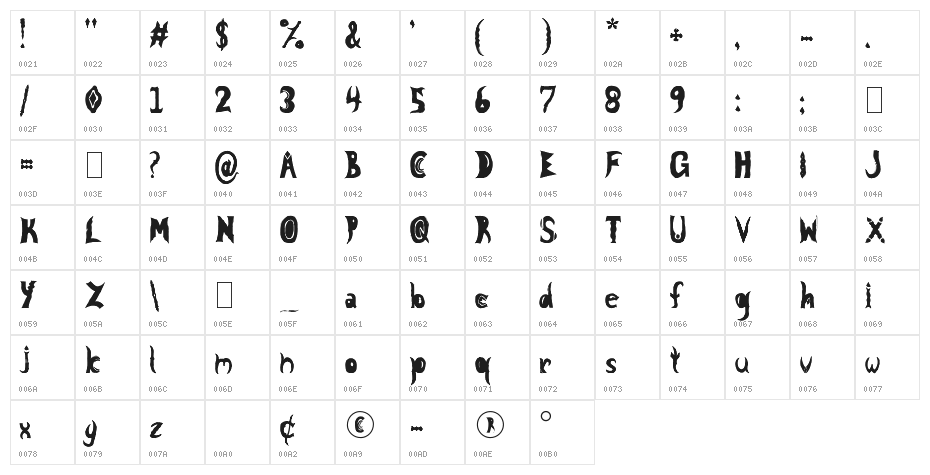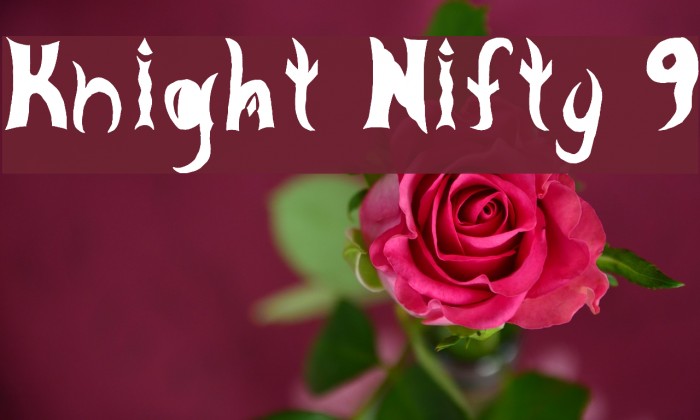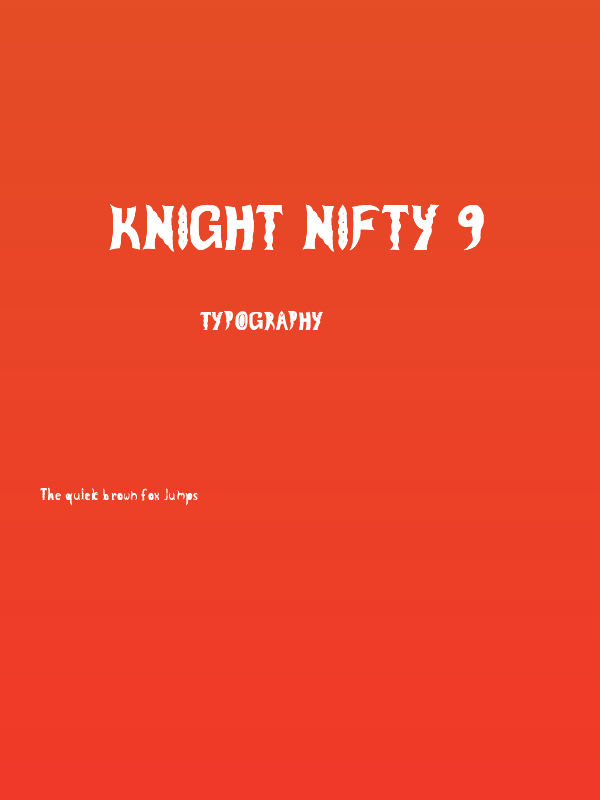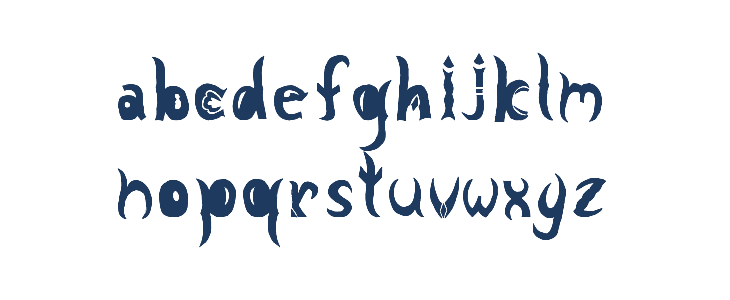
Knight Nifty 9 Font
Knight Nifty 9 Description
This font features a bold and dynamic design with a strong decorative flair. Each character is uniquely crafted with intricate details, giving it a whimsical and artistic appearance. The uppercase letters exhibit a variety of shapes and embellishments, while the lowercase letters maintain a consistent yet playful style. Numbers and special characters are equally distinctive, incorporating creative elements that enhance the overall aesthetic. The font's boldness and artistic nature make it stand out, suitable for projects that require a touch of creativity and uniqueness.
| Proposed Projects | Ideal for creative projects such as posters, album covers, event invitations, and branding materials that require a distinctive and artistic touch. |